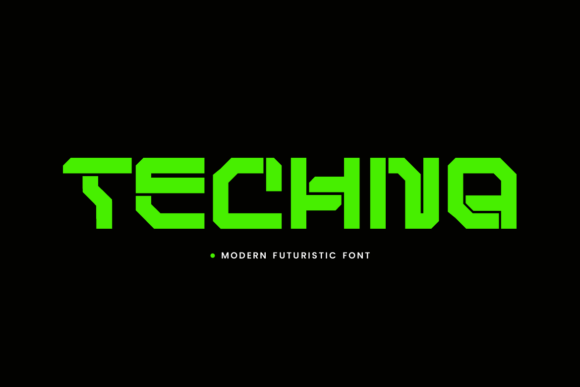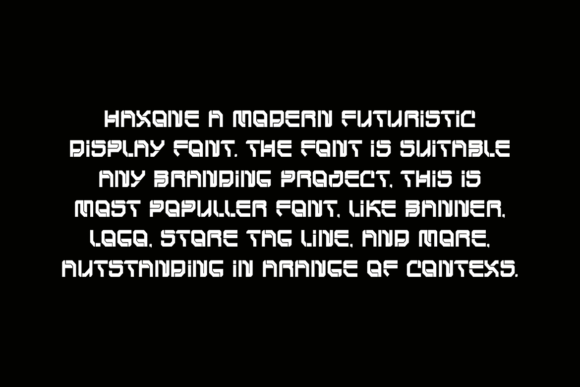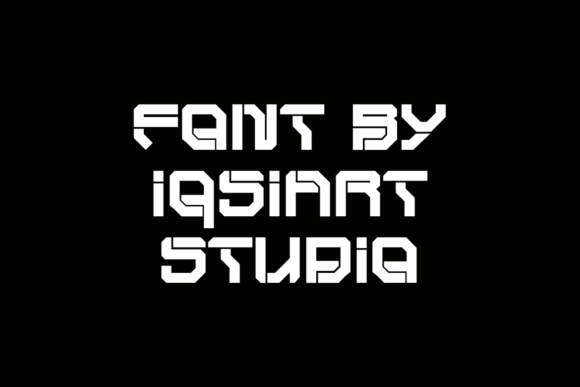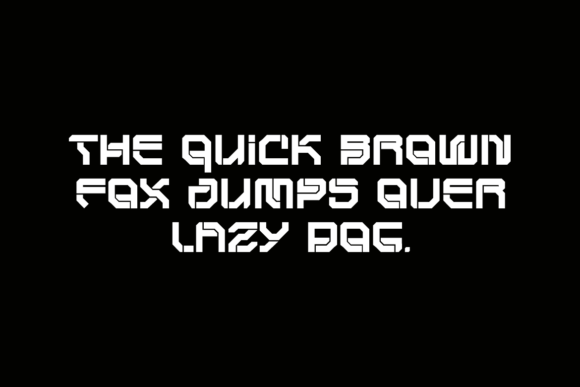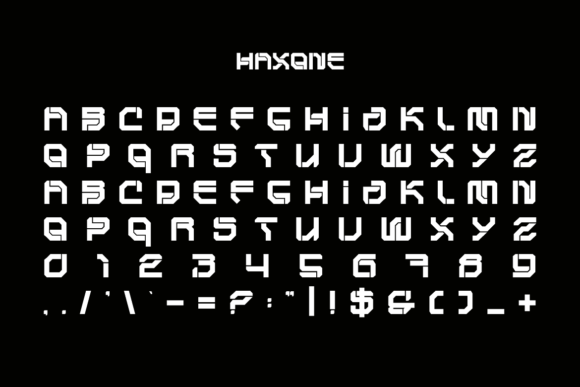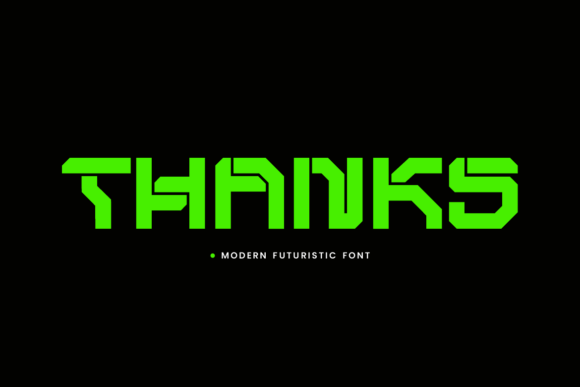
Haxone Font: The Ultimate Choice for Futuristic Designs
In the world of typography, fonts play a crucial role in conveying the tone and aesthetic of a design. For designers and crafters looking to create futuristic, tech-themed visuals, the Haxone font is an excellent choice. This sharp and edgy font is specifically designed to add a digital flair to your titles, logos, and projects, making it perfect for sci-fi, gaming, and coding-related applications.
What is Haxone Font?
Haxone is a modern, blocky font that boasts angular strokes and a futuristic look. Its unique design makes it stand out in any project, adding a touch of sophistication and character. The font’s sharp edges and digital aesthetic evoke a sense of innovation and cutting-edge technology, making it an ideal choice for designers who want to create a lasting impression.
Key Features of Haxone Font
- Sharp and Edgy Design: Haxone’s angular strokes and sharp edges give it a futuristic look that’s perfect for tech-themed designs.
- Digital Flair: The font’s digital aesthetic makes it ideal for sci-fi, gaming, and coding-related projects.
- Blocky and Modern: Haxone’s blocky design is both readable and full of character, making it perfect for titles, logos, and headings.
- Versatile: The font is suitable for a wide range of applications, from digital designs to print materials.
Use Cases for Haxone Font
Haxone is a versatile font that can be used in various design projects, including:
- Sci-Fi and Gaming: The font’s futuristic design makes it perfect for sci-fi and gaming-related projects, such as movie titles, game logos, and character designs.
- Coding and Tech: Haxone’s digital aesthetic makes it an excellent choice for coding and tech-related projects, such as website headers, app icons, and software interfaces.
- Logos and Branding: The font’s unique design makes it suitable for logos and branding materials, such as business cards, letterheads, and product packaging.
- Posters and Flyers: Haxone’s bold and modern design makes it perfect for posters and flyers, especially for events and promotions related to tech, gaming, and sci-fi.
Why Choose Haxone Font?
With so many fonts available, why choose Haxone? Here are a few reasons:
- Unique Design: Haxone’s futuristic design sets it apart from other fonts, making it a great choice for designers who want to create something unique.
- Readability: Despite its bold and edgy design, Haxone is highly readable, making it suitable for body text and headings.
- Customizability: The font is highly customizable, allowing designers to adjust the size, color, and style to fit their design needs.
Tips for Using Haxone Font
To get the most out of Haxone, here are some tips:
- Pair with a Sans-Serif Font: Pair Haxone with a sans-serif font to create a clean and modern look.
- Experiment with Colors: Haxone looks great in bold and bright colors, so don’t be afraid to experiment with different color schemes.
- Use for Headings: Haxone is perfect for headings and titles, so use it to create a bold and eye-catching design.
In conclusion, Haxone is a sharp and edgy font that’s perfect for designers and crafters looking to create futuristic, tech-themed designs. Its unique design, digital aesthetic, and versatility make it an excellent choice for a wide range of applications. Whether you’re working on a sci-fi movie title, a gaming logo, or a coding project, Haxone is sure to make your design stand out.